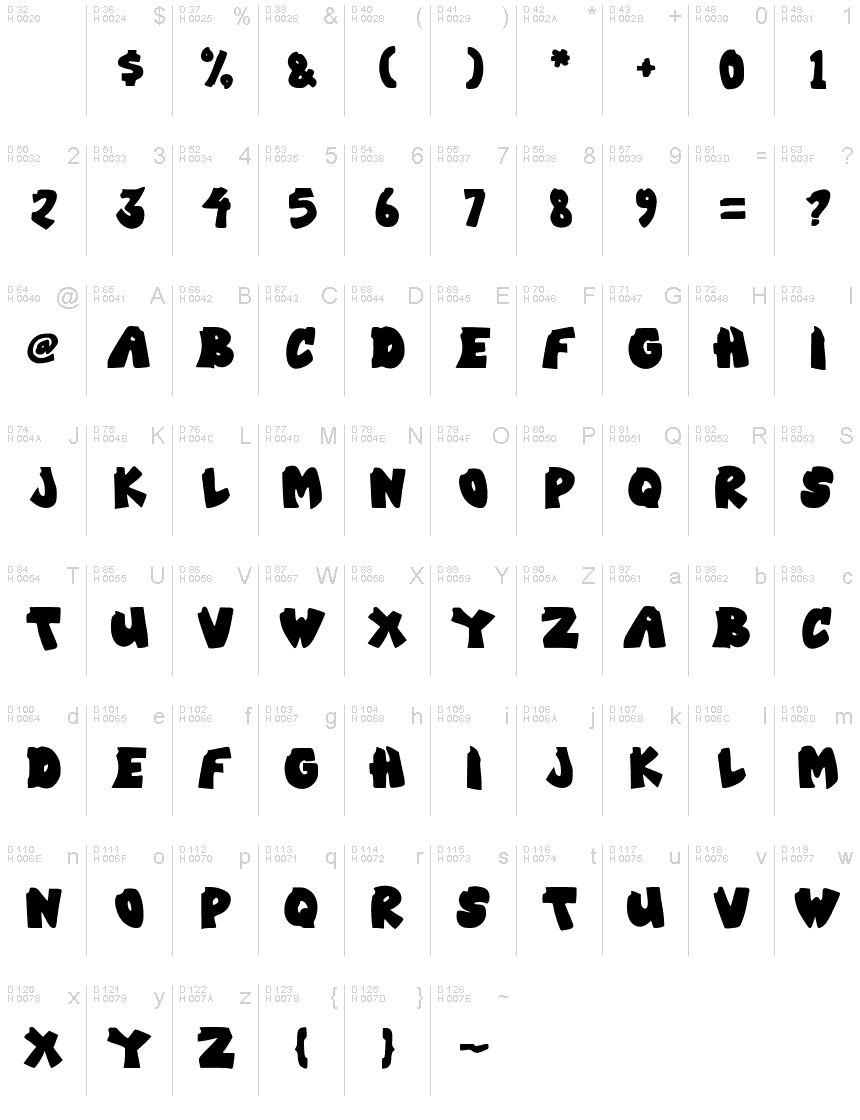
Urban Termu
Looking for a font that stands out from the crowd? Look no further than Urban Termu, designed by Muhammad Yafinuha. This display font is anything but ordinary, with its unique cartoon style that adds a playful and dynamic element to any creative project. Its extra-bold weight and semi-expanded width make it perfect for grabbing attention and creating a bold statement.
Whether you're working on branding, packaging, posters, or digital design, Urban Termu has the versatility to elevate your work and make it unforgettable.
Embrace the unconventional and let Urban Termu bring your creative vision to life in ways you never thought possible.